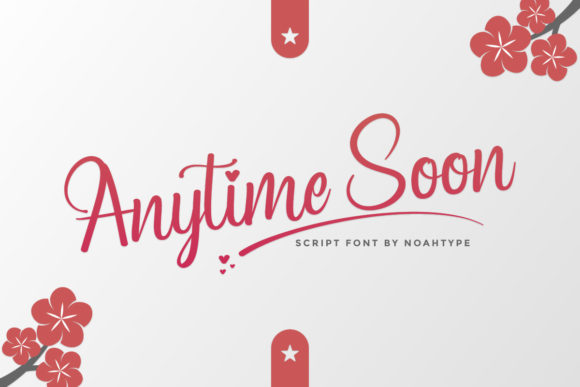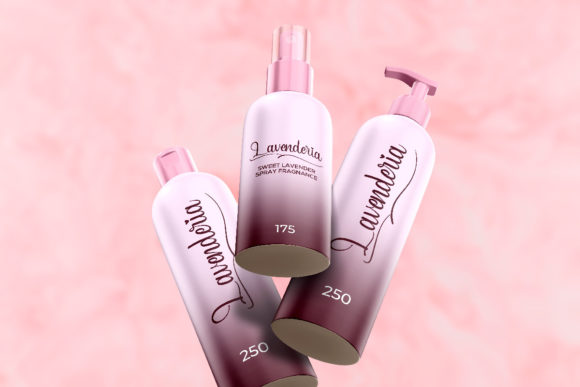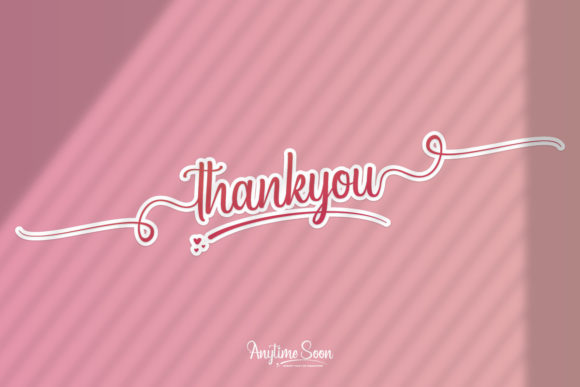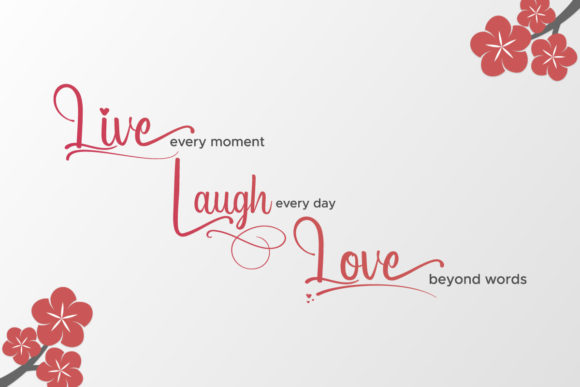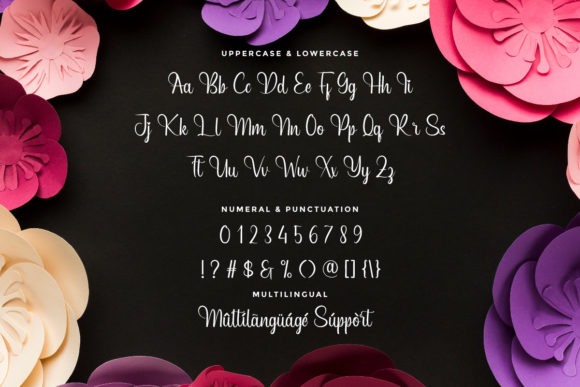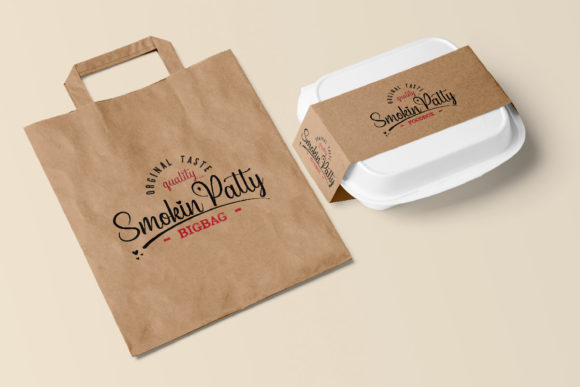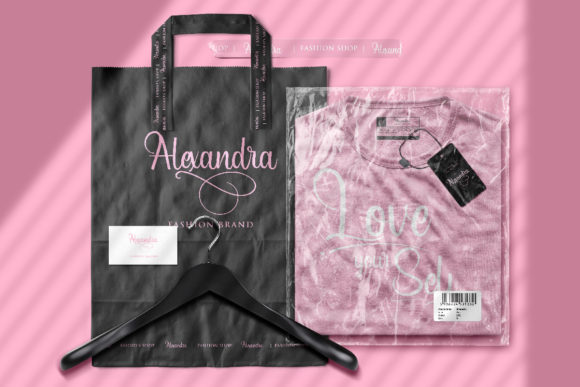
Anytime Soon Font
About Anytime Soon Font
Anytime Soon is a thin lettered and graceful script font. It will add a luxury spark to any design project that you wish to create! This font is PUA encoded which means you can access all of the amazing glyphs and ligatures with ease!